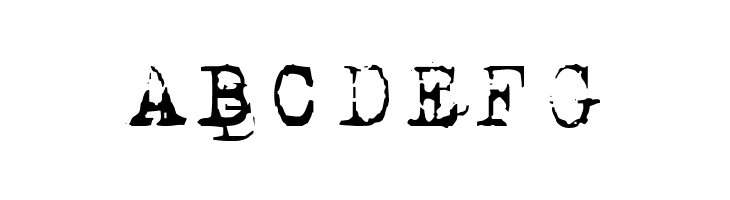
Terror Babble Bold Italic Font
- Font: Terror Babble Bold Italic
- Weight: Bold Italic
A distressed, vintage typewriter-style font with a bold, textured appearance.